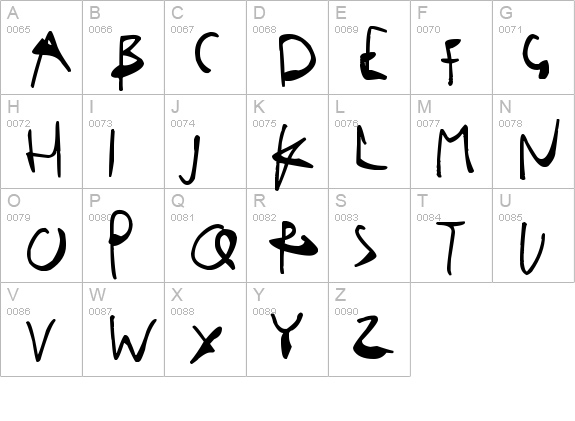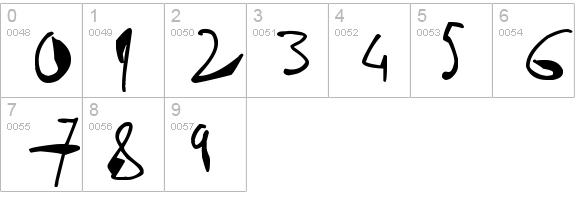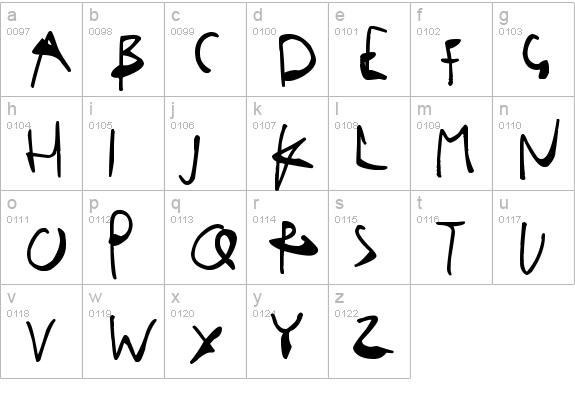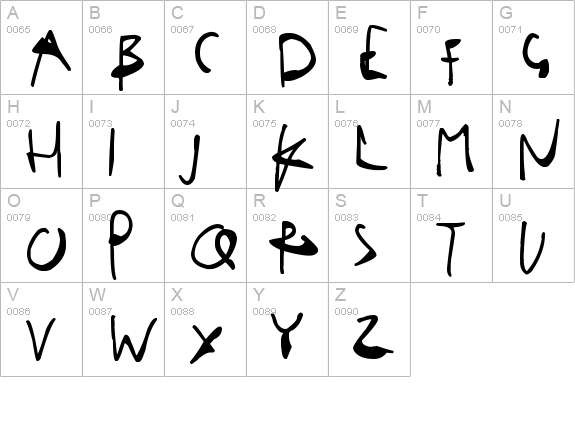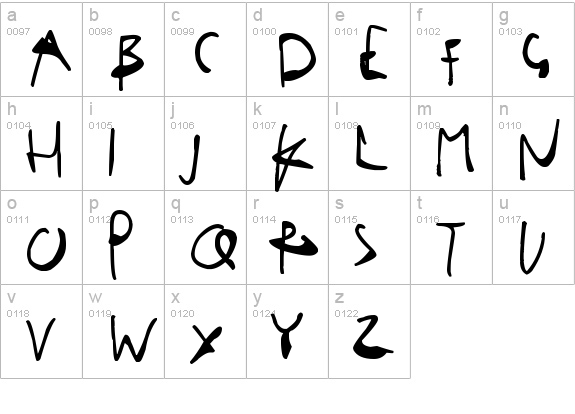
Single Stroke Inks Font Details
Single Stroke Inks font is a stunning display typeface that exudes elegance and sophistication. With its flowing lines and graceful curves, this font is perfect for adding a touch of style to any design project. Whether you're creating invitations, logos, or branding materials, Single Stroke Inks font will make your text stand out and leave a lasting impression.
What sets Single Stroke Inks font apart is its unique single stroke design, giving it a modern and sleek look that is both eye-catching and versatile. This font is ideal for both digital and print applications, making it a must-have for any designer or creative professional.